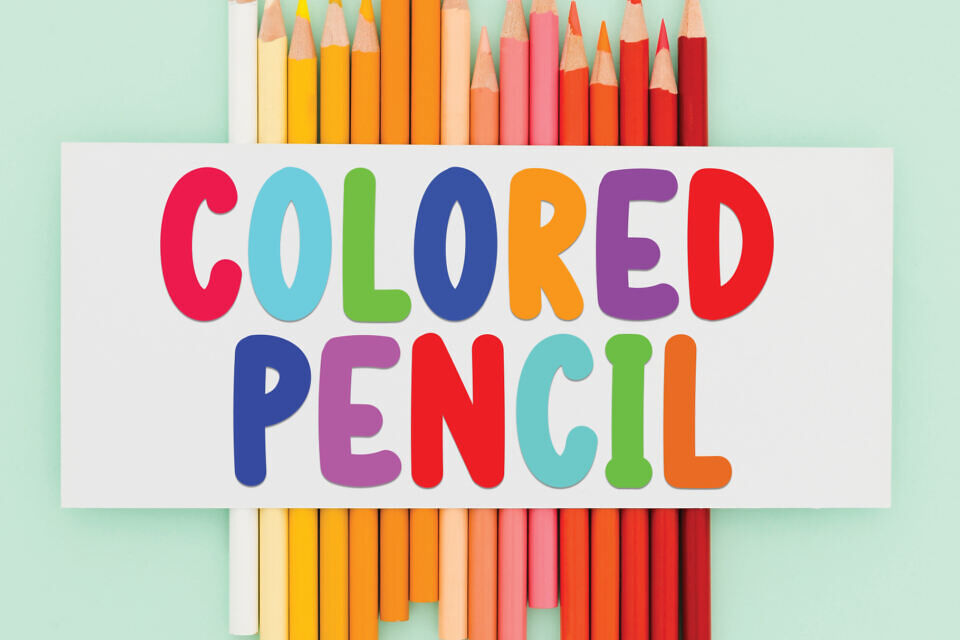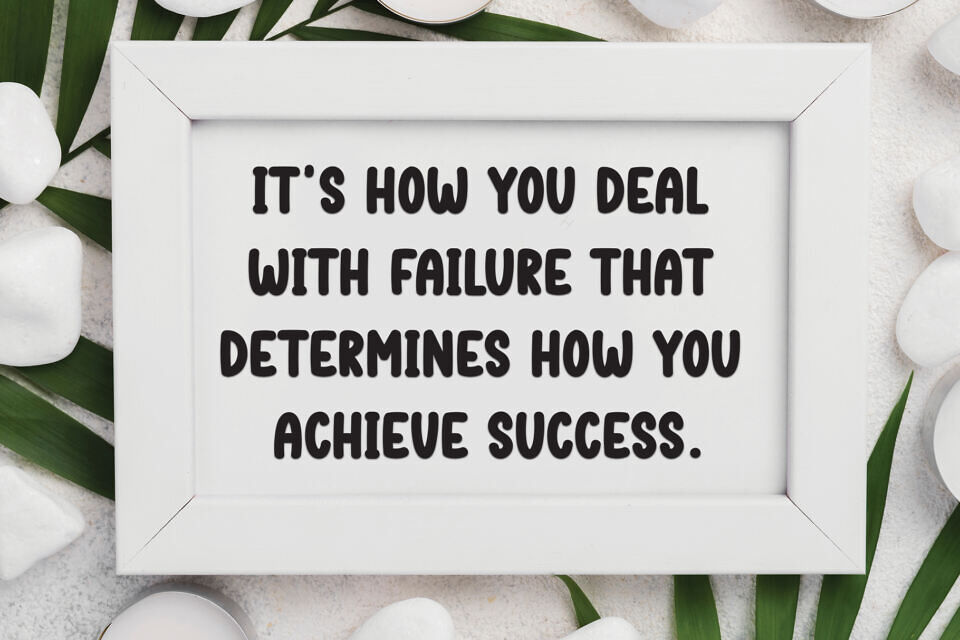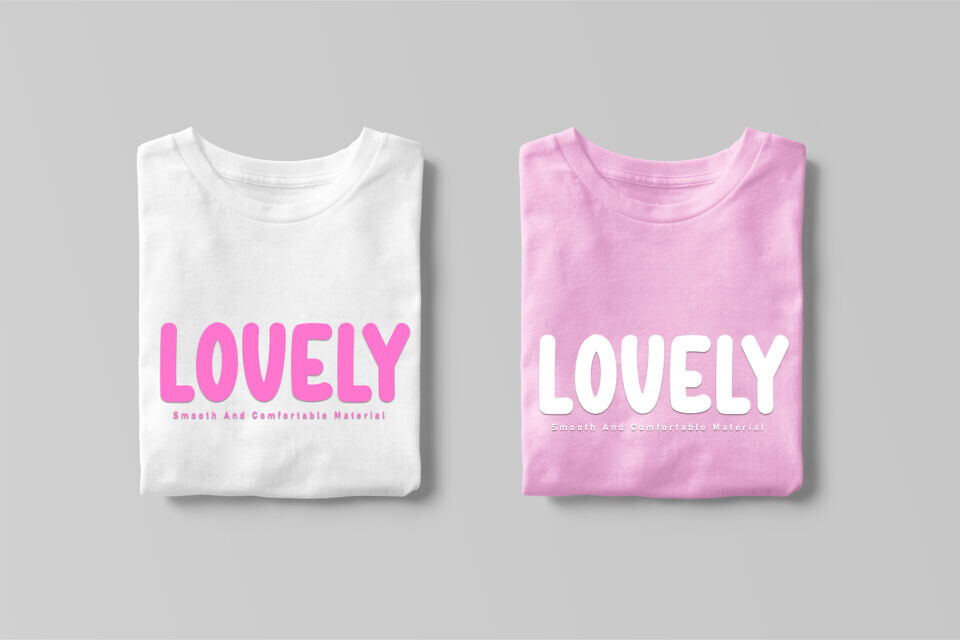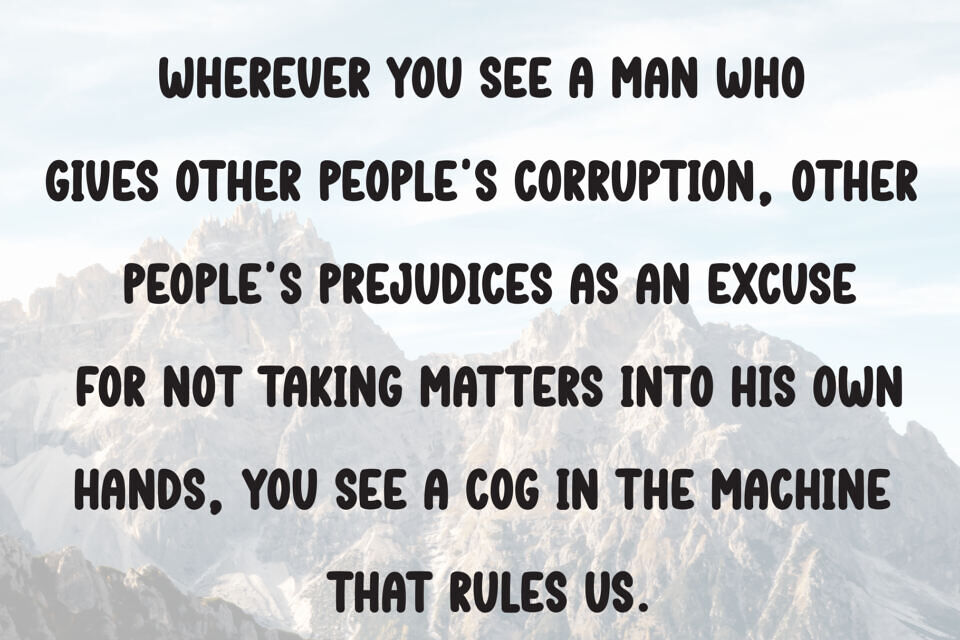
The Cafe Coffee Font is a playful, bold typeface with a whimsical charm, perfect for cozy cafe vibes. It features uppercase and lowercase letters, numbers, punctuation, and special characters, all in a rounded, hand-drawn style.
With accented letters for multilingual support, this font adds a warm, inviting touch to menus, signs, and branding, evoking the comforting aroma of coffee and the rustic charm of a quaint cafe setting.